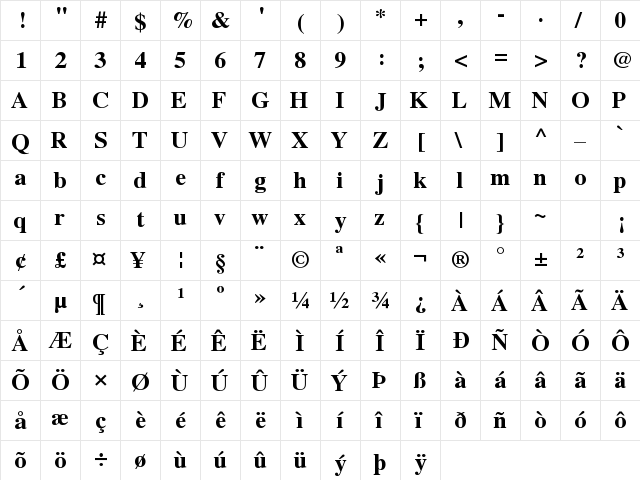
WinSoft Serif Pro Bold
Design Context for WinSoft Serif Pro Typeface
WinSoft Serif Pro brings classic typographic sensibility to the table — its serifs and measured letterforms reflect centuries of print heritage. The heavy weight commands attention and anchors typographic hierarchies.
Pro Tip: Use WinSoft Serif Pro for editorial body copy and considered headline work. Pair with a neutral sans for UI elements or captions to create a classic hierarchy.